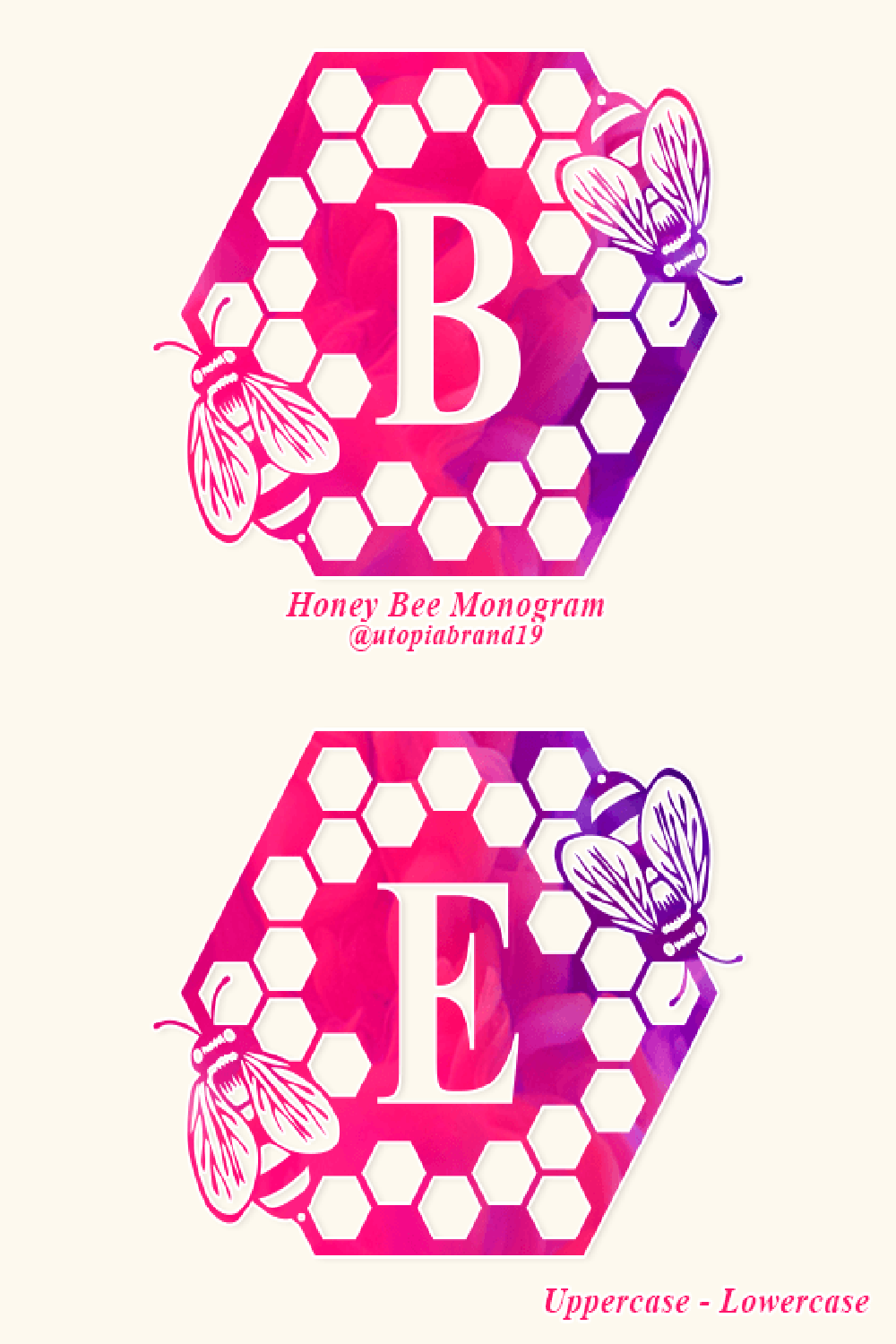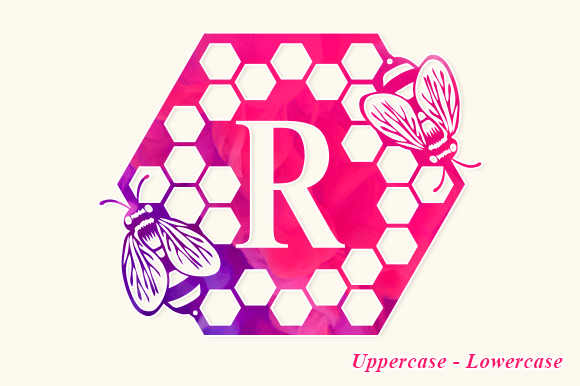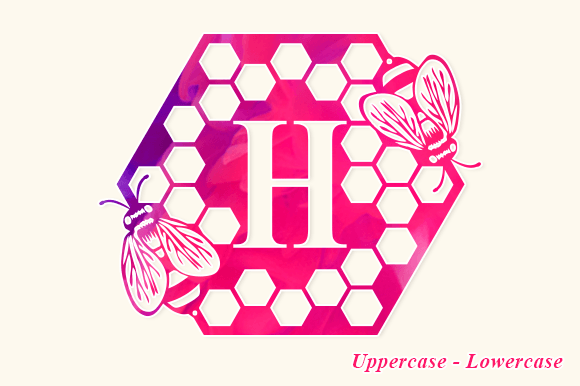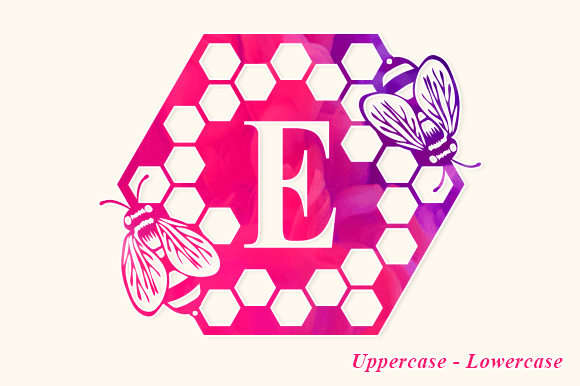
Honey Bee Monogram Font
About the Honey Bee Monogram Font
Unleash your creativity with Honey Bee Monogram Font, a versatile font perfect for a wide range of applications. Honey Bee Monogram is an elegant decorative font, featuring lovely ornaments. Fall in love with its authentic feel and use it to create gorgeous wedding invitations, beautiful stationary art, eye-catching social media posts, and cute greeting cards.
Honey Bee Monogram’s elegant decorative style is ideally suited for projects requiring a touch of vintage charm. It excels in applications like wedding invitations, stationery, and short social media copy where its ornate details shine. However, its decorative nature makes it less suitable for body text or UI elements; readability suffers in extended use.
The font’s personality is undeniably romantic and sophisticated. Brands emphasizing handcrafted quality, vintage aesthetics, or a delicate, feminine touch will find it a perfect fit. Consider pairing it with a clean sans-serif like Lato for contrast in layouts needing both elegance and readability, or a classic serif like Garamond for a more cohesive, traditional feel.
For a more modern twist, a geometric sans-serif such as Montserrat can create a striking juxtaposition, allowing the Honey Bee Monogram to stand out as a refined decorative element. Avoid pairing it with other highly ornamented fonts, as this could create visual clutter.